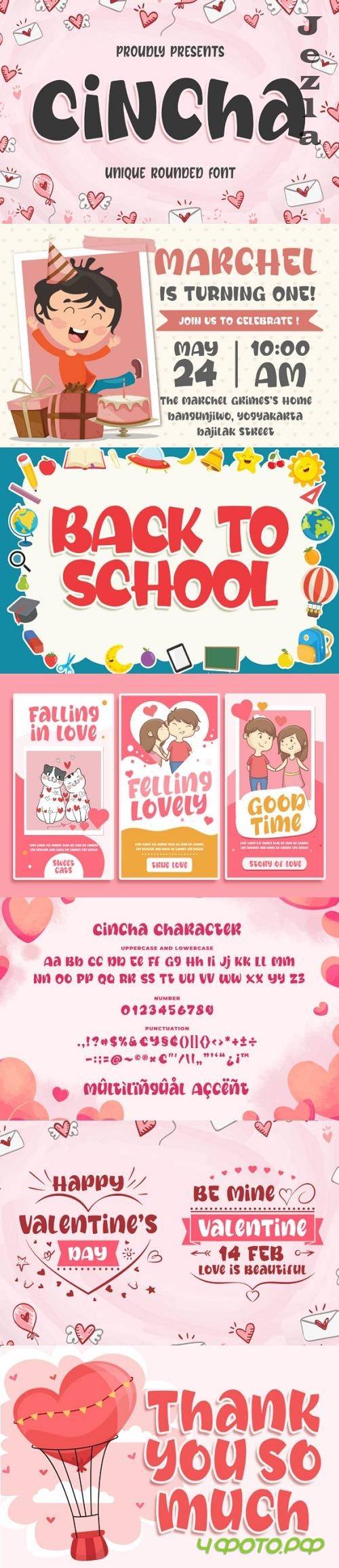
Cincha Font
Cincha is a cute and fun display font with an incredibly friendly feel. Whether you’re looking for fonts for Instagram or calligraphy scripts for DIY projects, this font will turn any creative idea into a true piece of art!